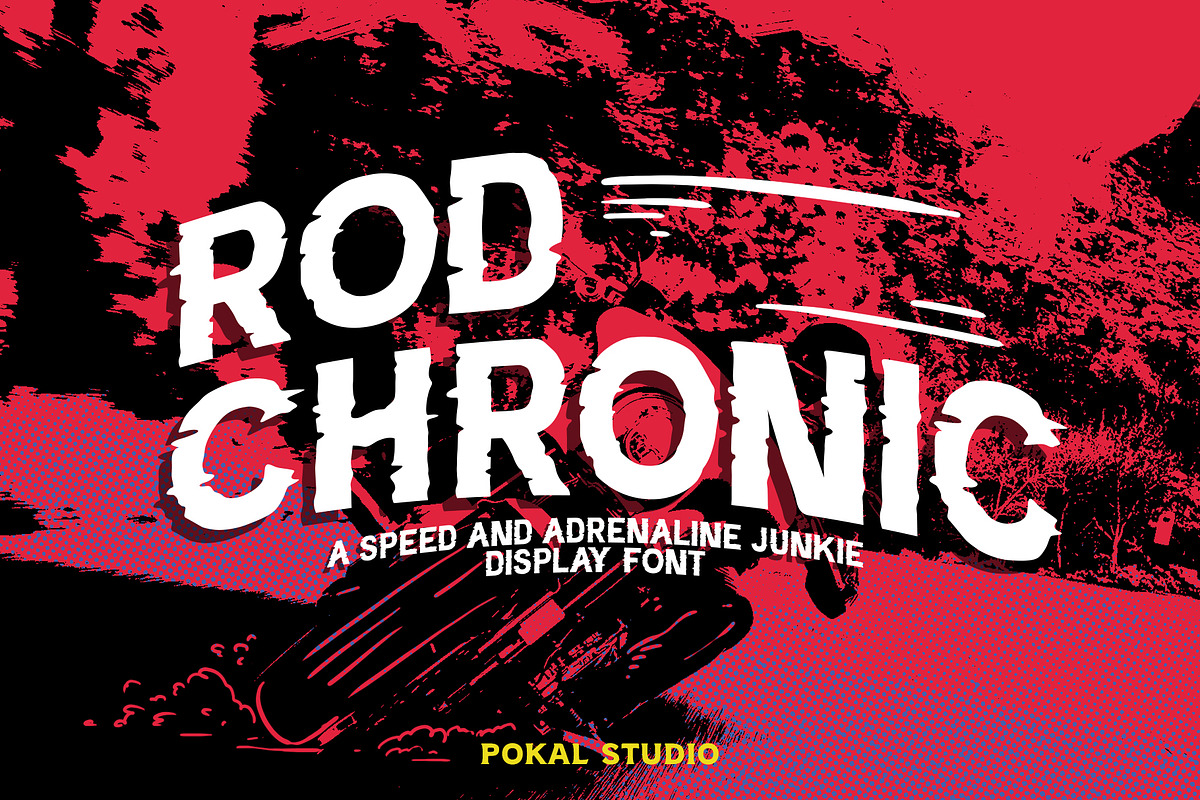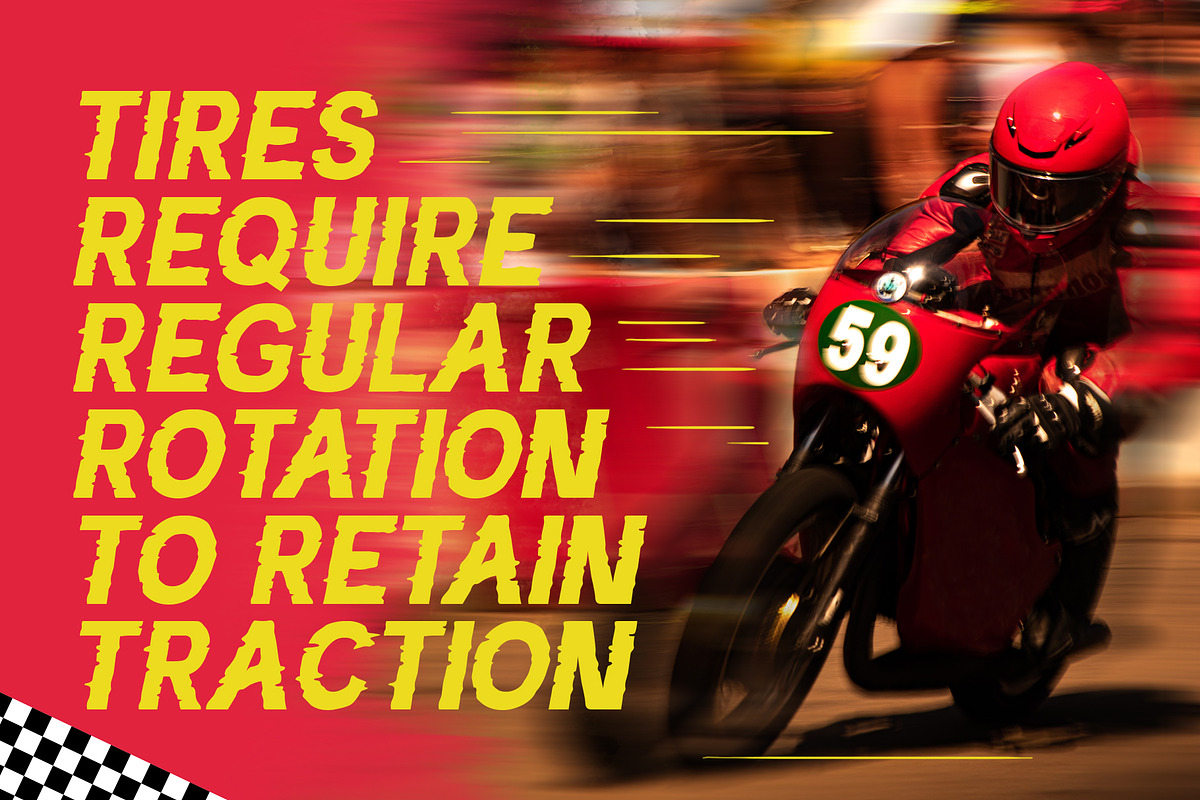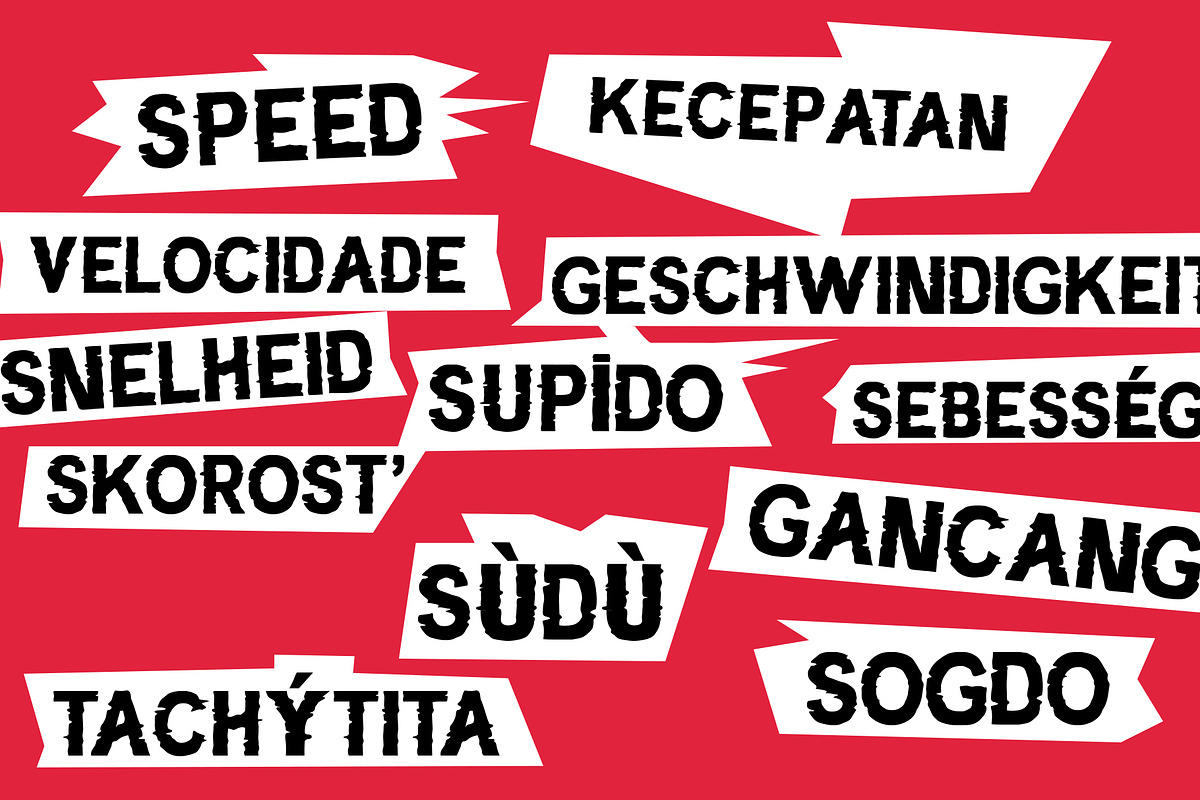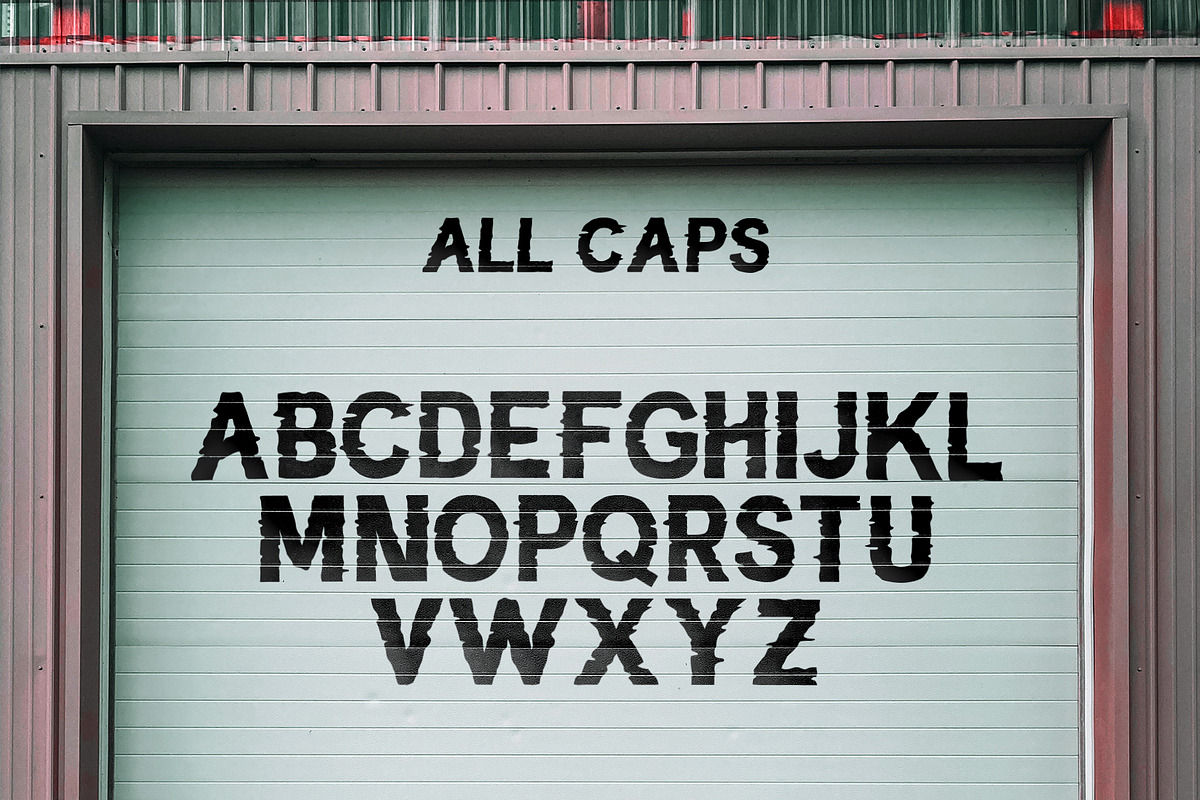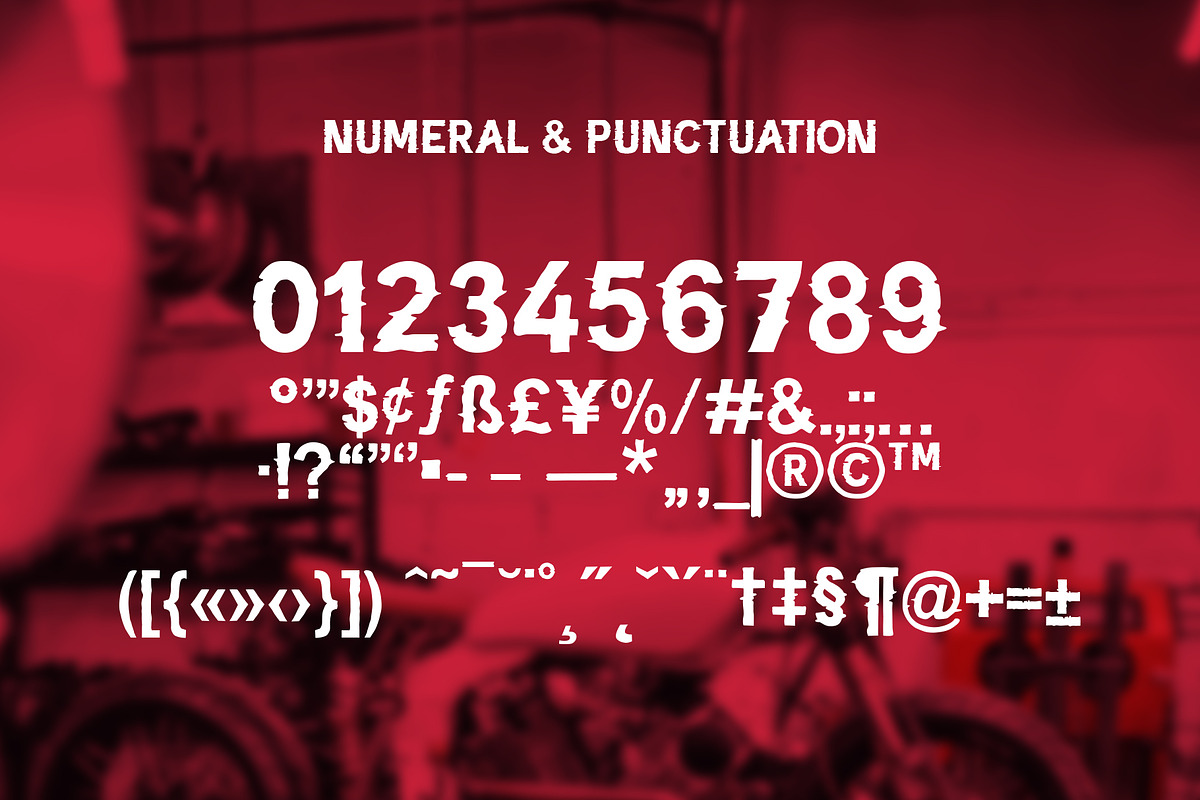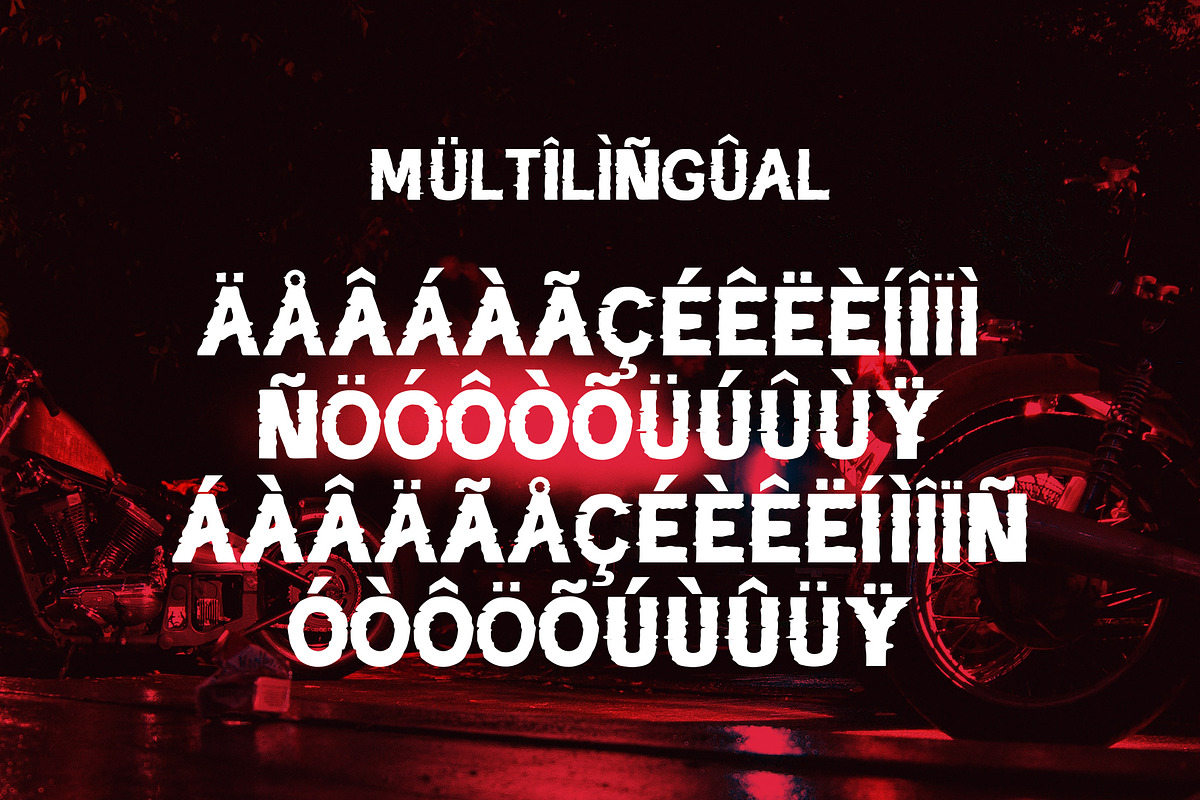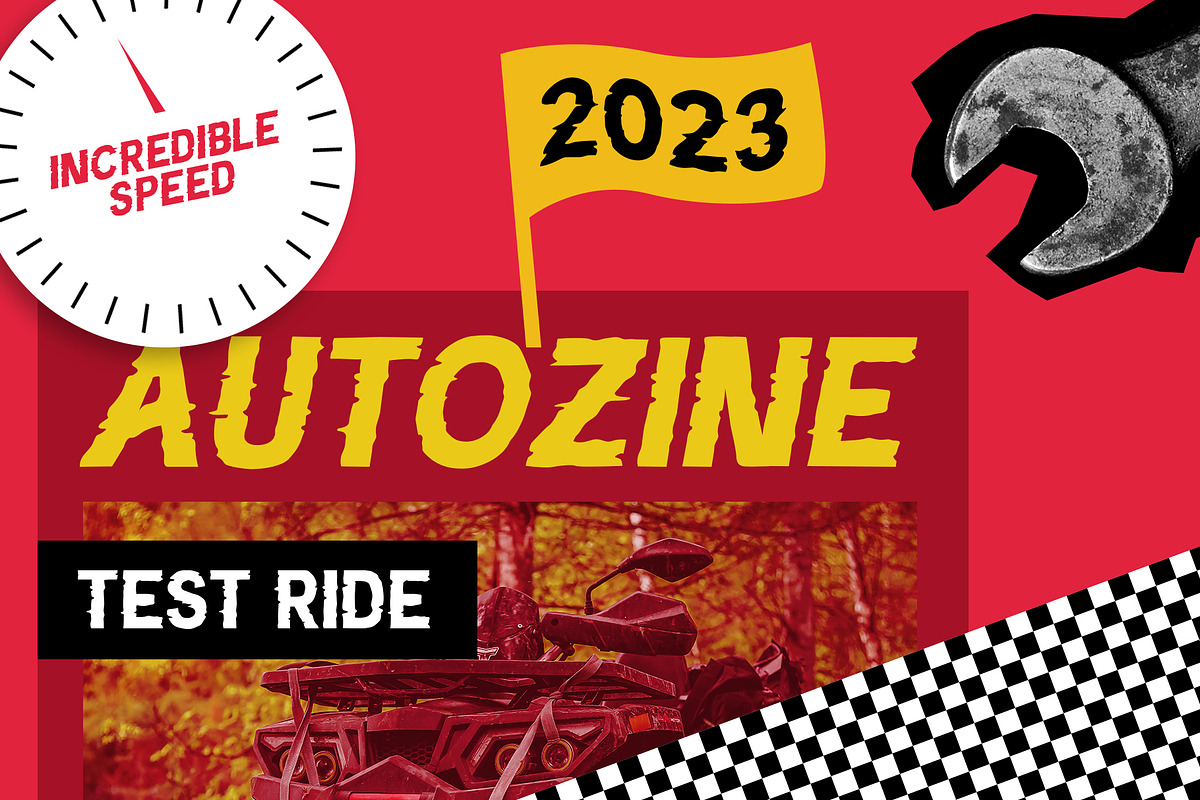
Rod Chronic Decorative Display Font
Introducing “Rod Chronic”, a display font for speed and adrenaline junkies, rev up your designs with our sleek display font inspired by the adrenaline-pumping world of motorcycles and racing. Crafted for maximum impact, this typeface embodies the essence of speed and style, making it the perfect choice for magazine headlines, posters, logos, apparel, and print materials. Get ready to accelerate your visual storytelling with our automotive-themed font.
Rod Chronic font supports multilingual with open-type Latin pro glyphs.